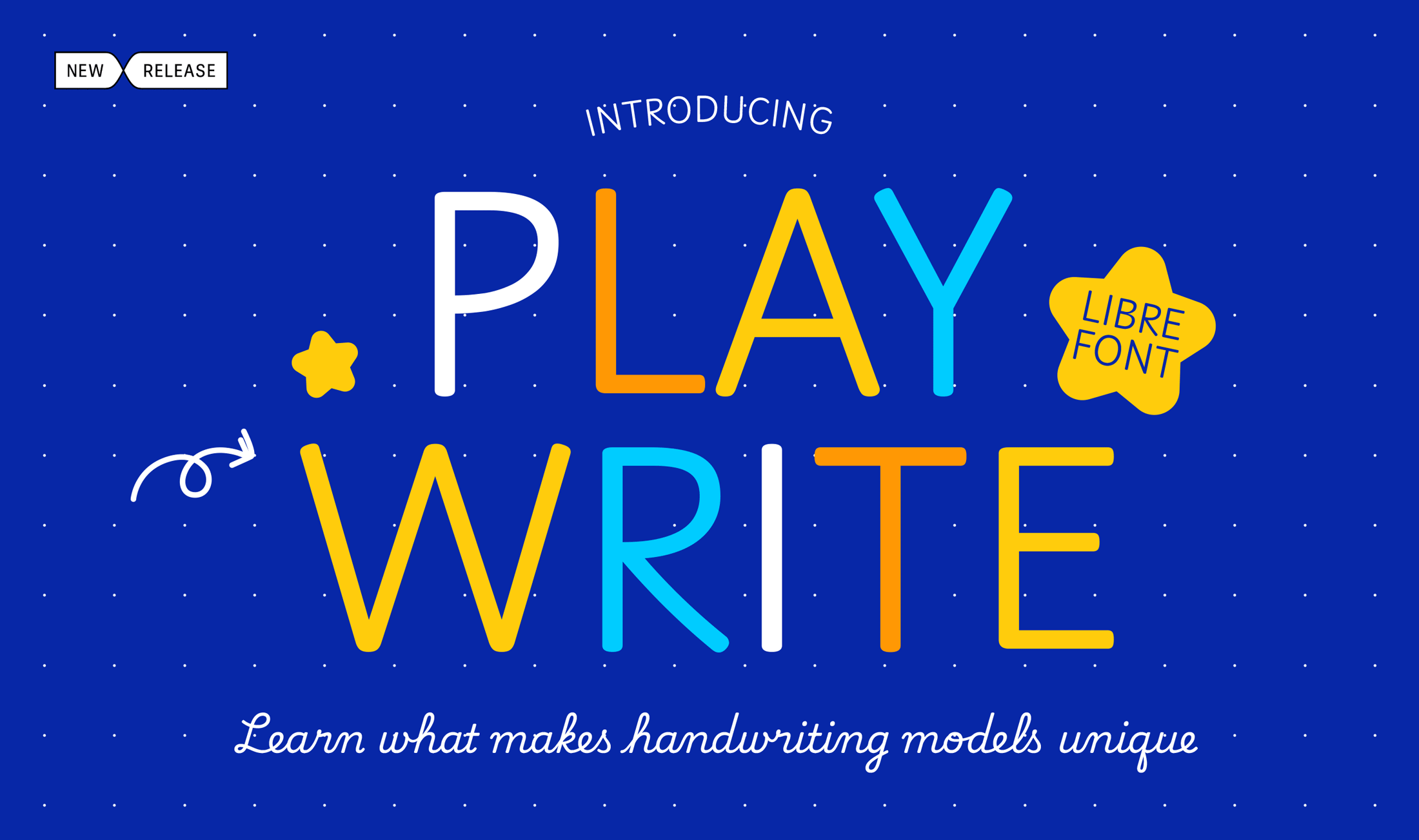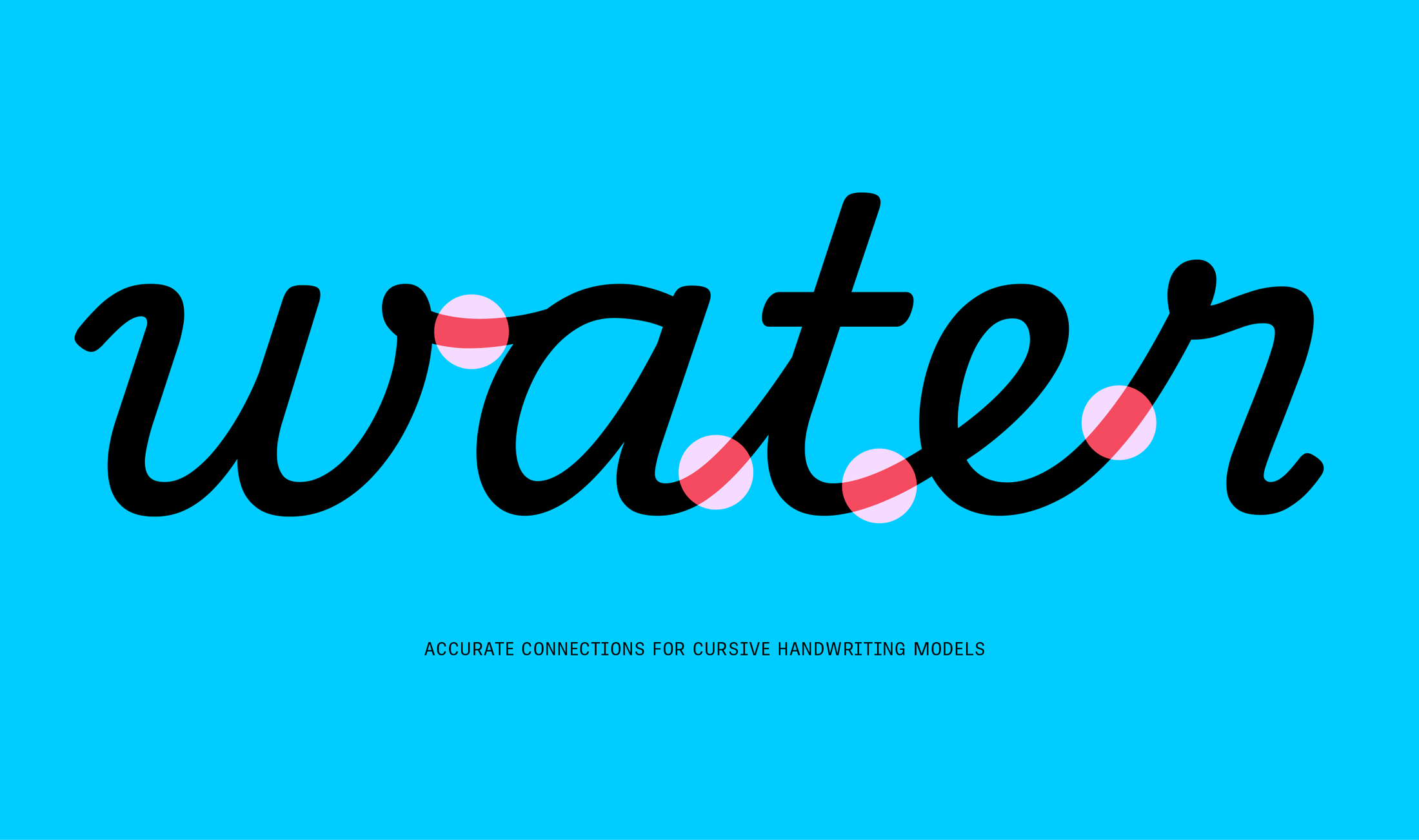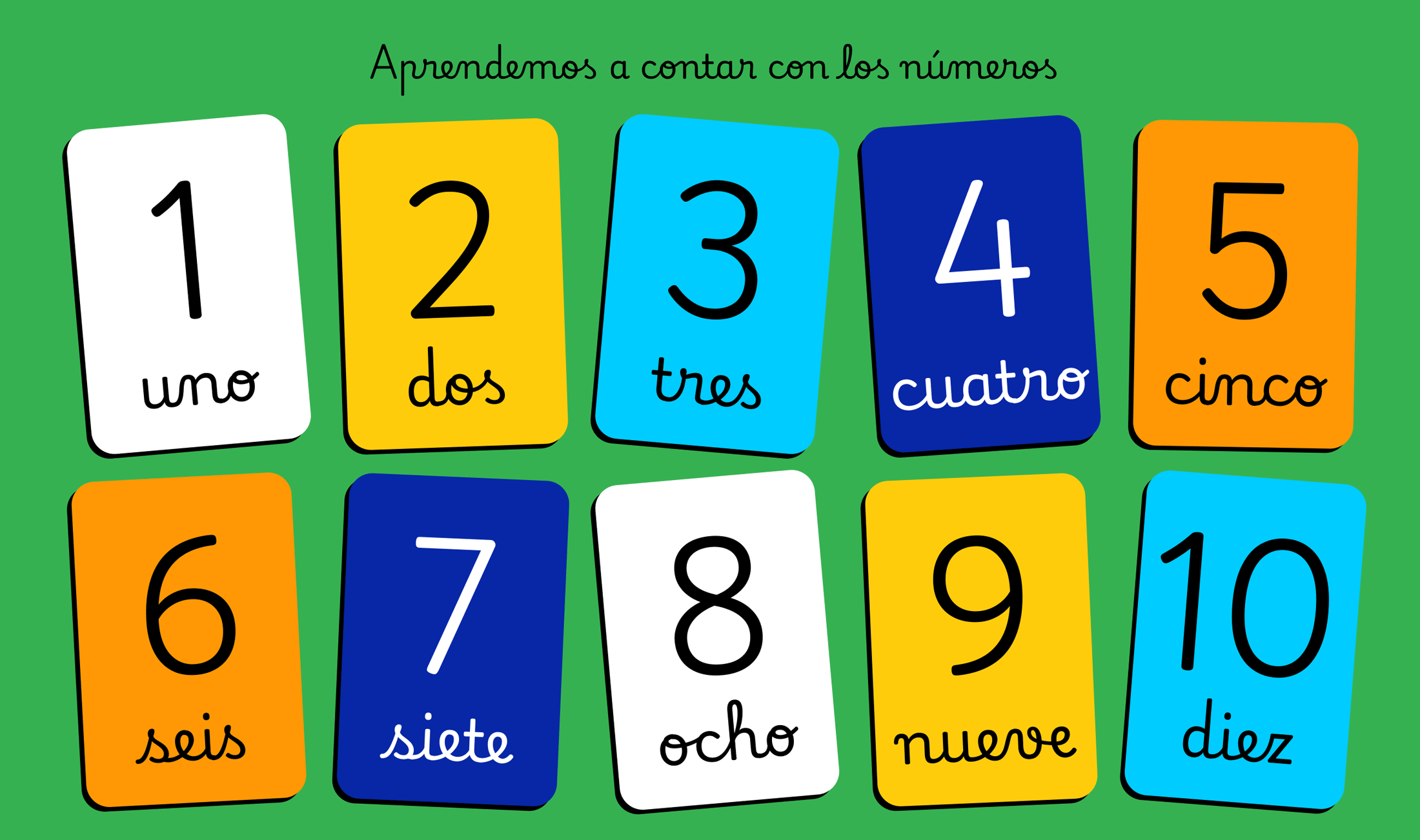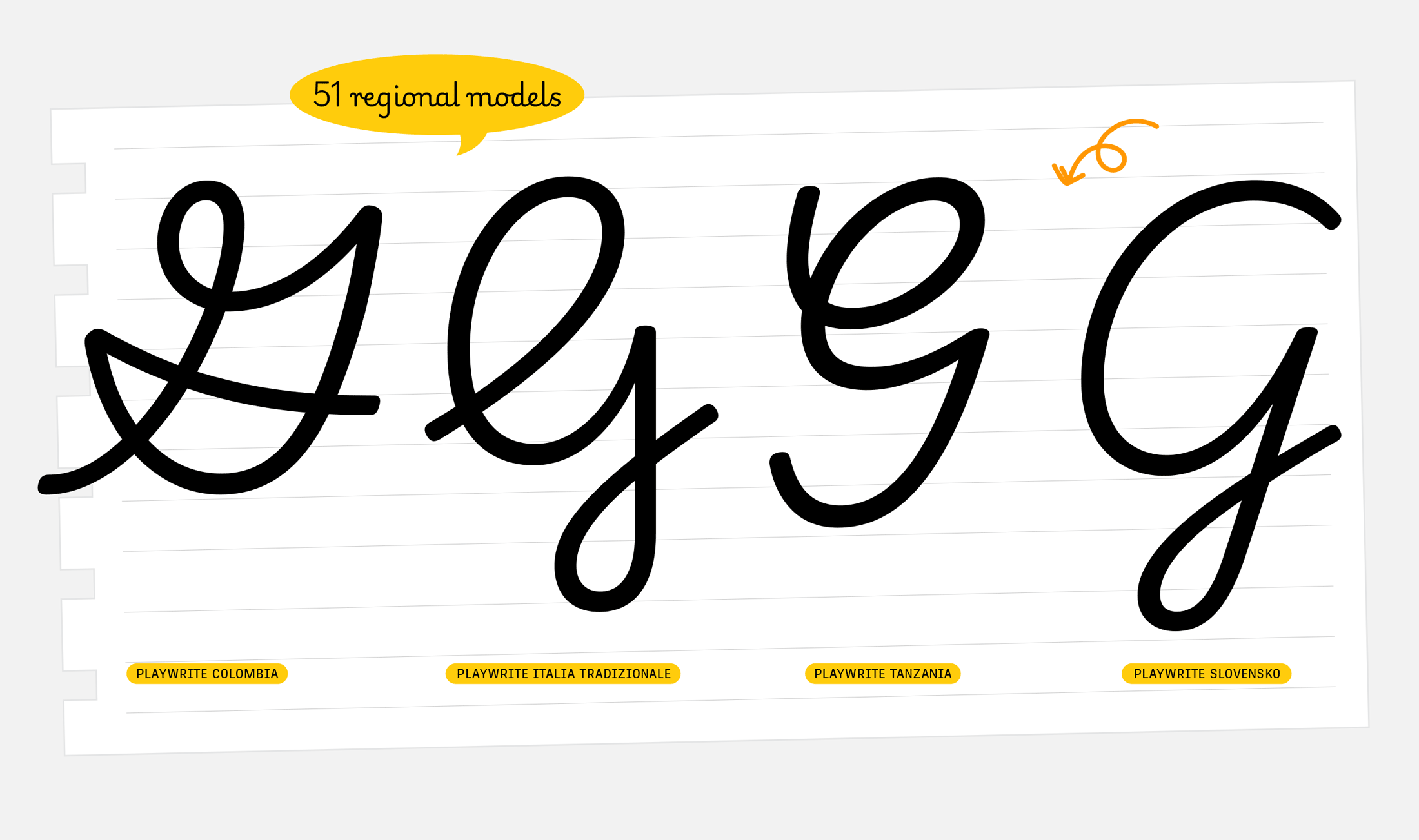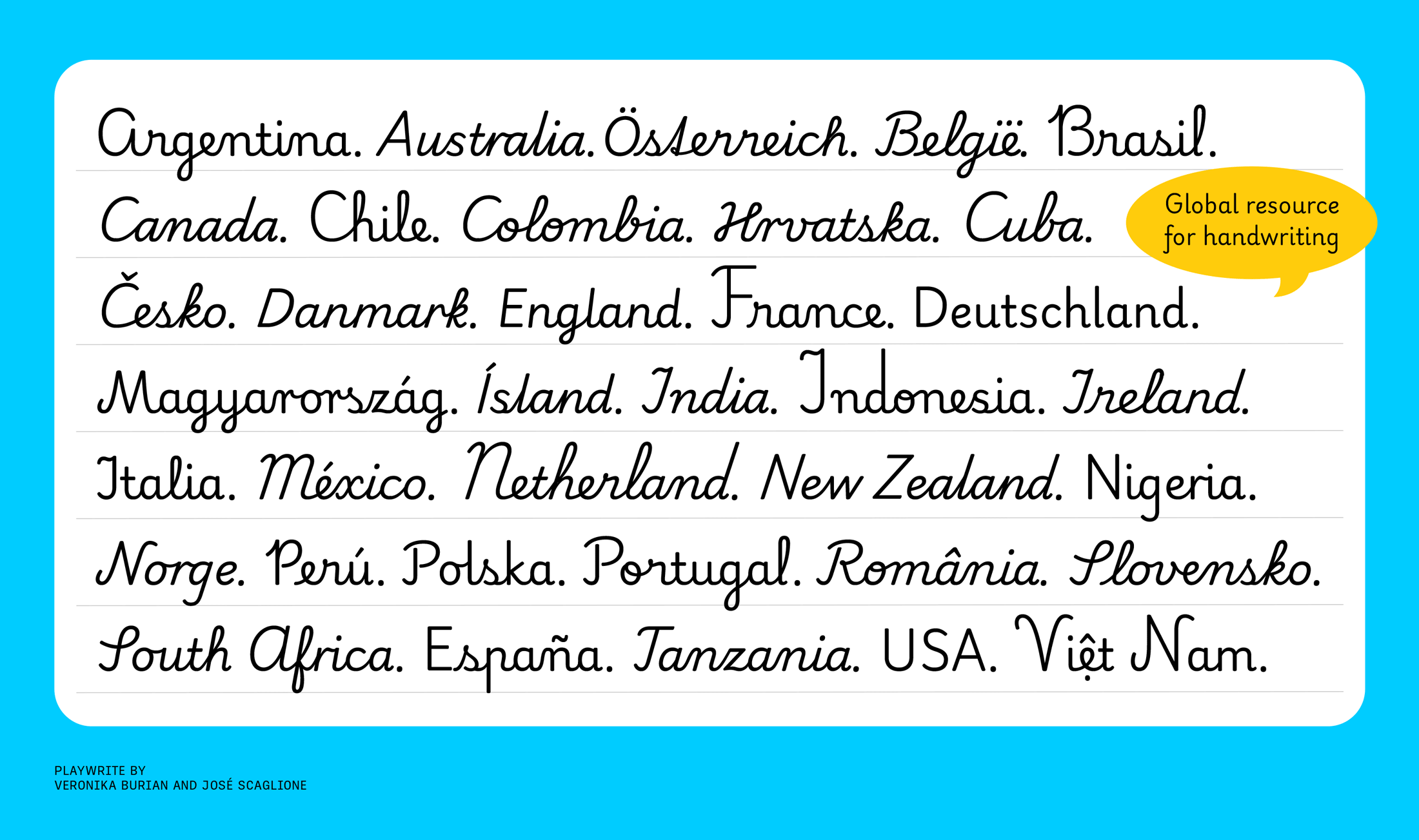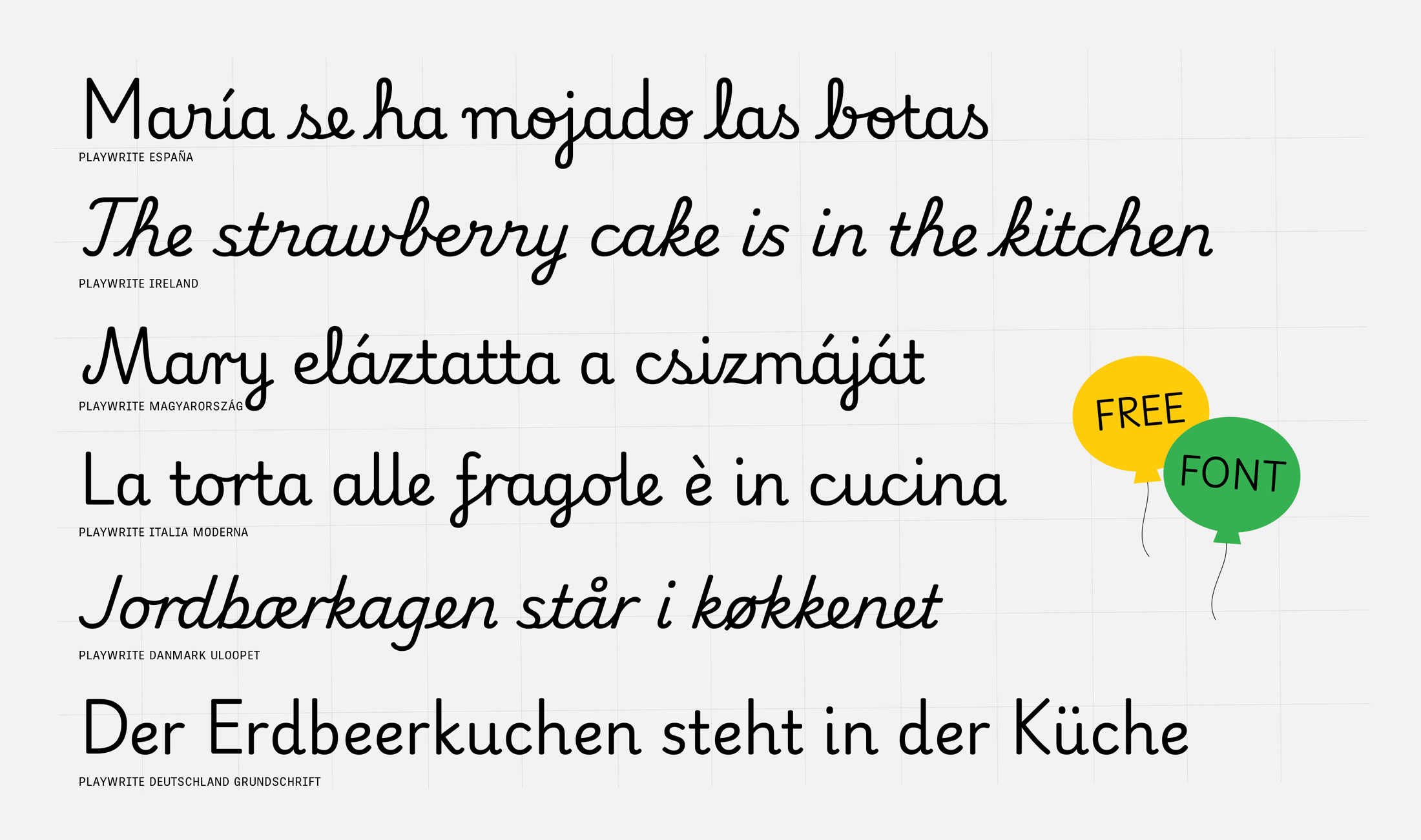
Playwrite release: amazingly elementary!
More than two years ago we began our intense team research into how handwriting is taught around the (Latin-based) world. Once most of the research was completed for more than 40 countries, we announced the release of our Primarium.info website. We followed it up with the casual Playpen Sans typeface, which used some of Primarium’s practical lessons, and we hinted at more to come. Well, today is that day.
Along with our partners at Google Fonts, we are proud to announce our new Playwrite family: a free, versatile typeface for handwriting instruction, localised by nation and available on Google Fonts. Teaching handwriting in Slovakia, Nigeria, or Tanzania? Just download that family and start using it immediately in your lessons. Each family comes as a variable font or as the OpenType static files with the glyphs and letterforms that are most familiar to each country.
There’s way more candy in this typographical piñata, so open it for yourself, download the Playwrite  families for free, and join us in celebrating all the colleagues who have given so much to this groundbreaking process.